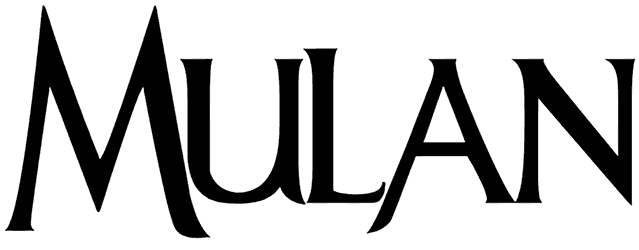
Mulan is a movie font designed with inspiration from the Japanese cartoon with the same title, and can add a little excitement to your texts.
You can get a semi-bold and Asian vibe from it and use it for any decorative headline or titles, Japanese novels and books, Japanese shop flyers and banners, action and retro Asian movies, and comic books. This one is also an all-cap one with a slight size difference in its alphabetical sets.